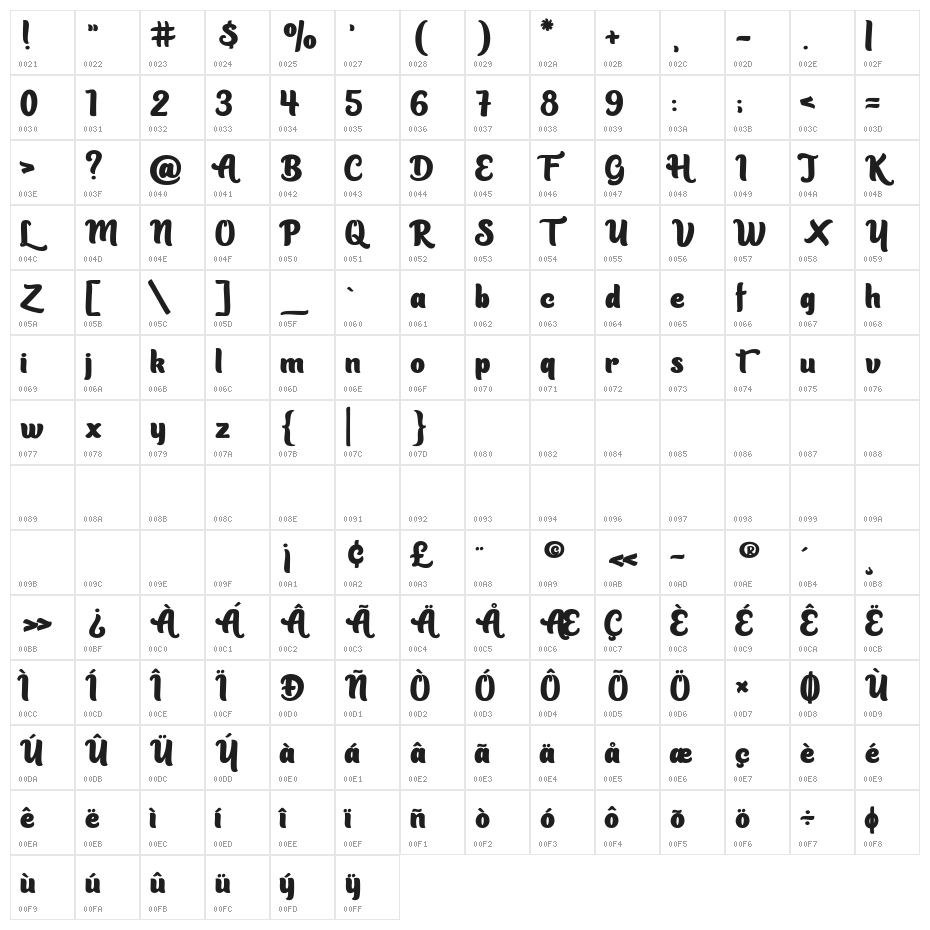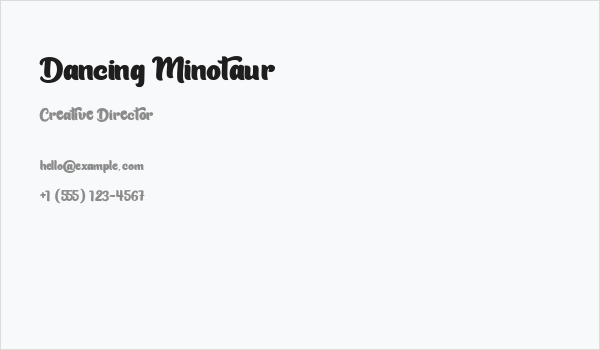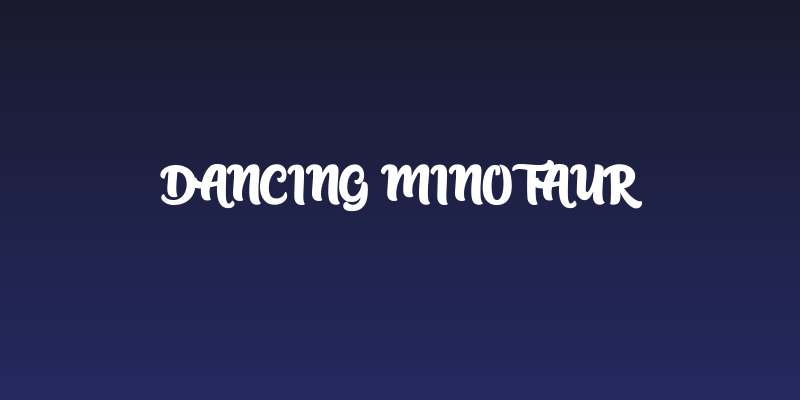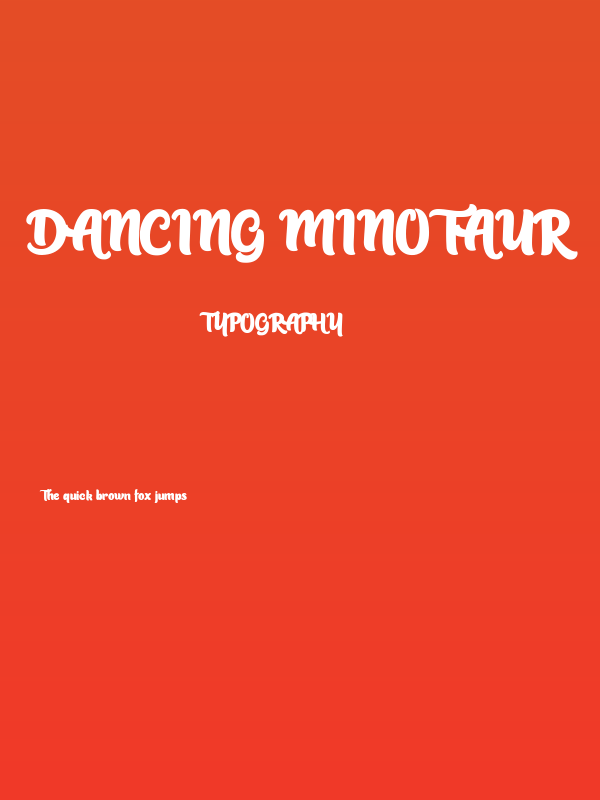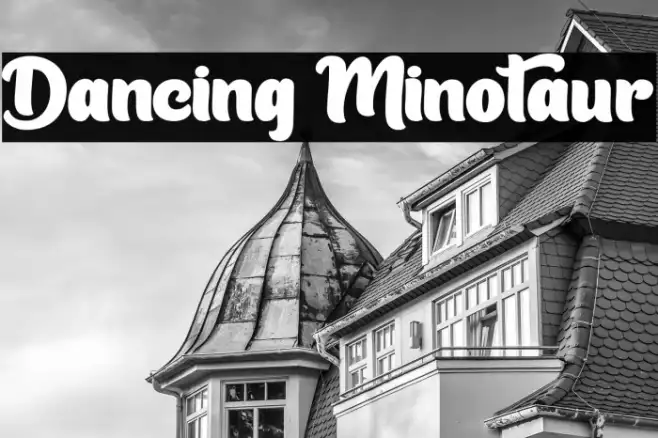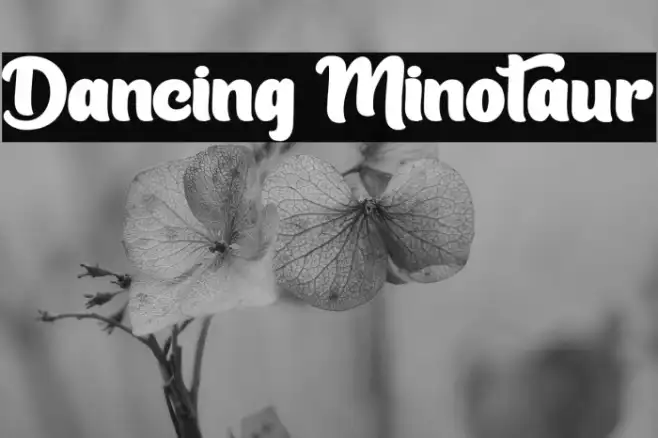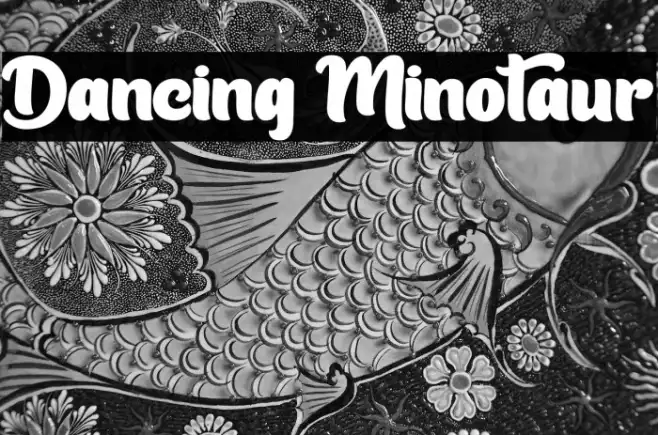
Dancing Minotaur Font
Dancing Minotaur Description
This font showcases a bold and playful script style, characterized by its thick, flowing strokes and whimsical curves. The uppercase letters exhibit a lively, almost theatrical flair, with exaggerated loops and swirls that convey a sense of movement and energy. The lowercase letters maintain this dynamic quality, with rounded forms and a consistent stroke weight that ensures readability despite the decorative elements. Numbers and special characters follow the same design principles, integrating seamlessly with the alphabetic characters. This font's overall appearance is both fun and bold, making it ideal for projects that require a touch of personality and flair.
| Proposed Projects | Ideal for branding, posters, invitations, and any project needing a lively, energetic typeface. |